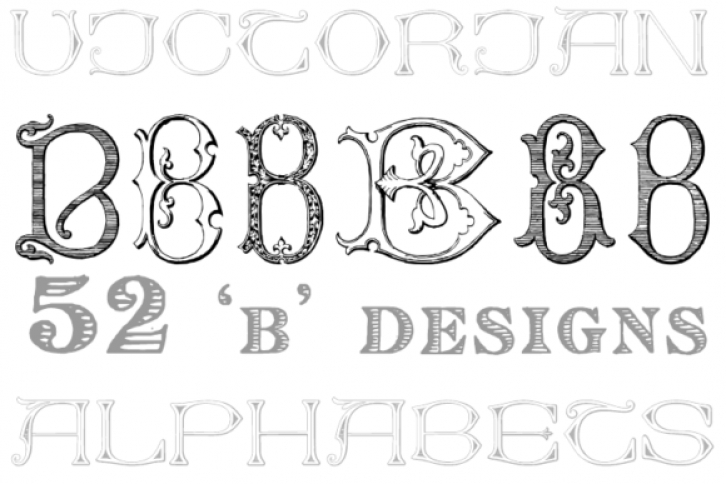
Victorian Alphabets B is an incredibly cool and classic display font. Elegant and distinct, this font will most certainly elevate your creations. Add it confidently to your projects, and you will love the results.